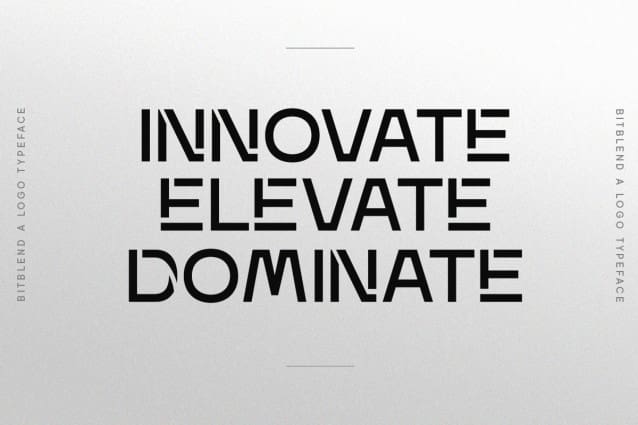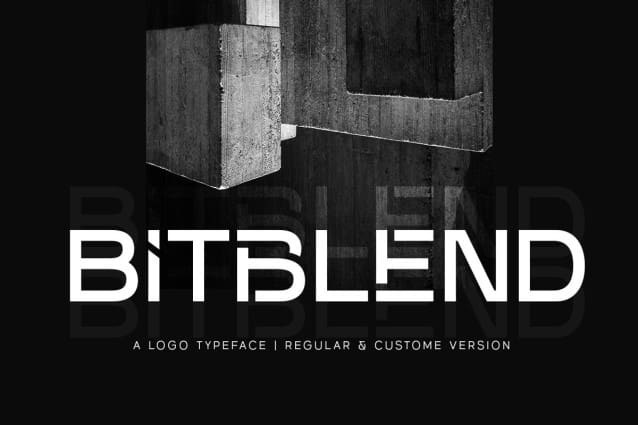
Bitblend Font
Bitblend Font is a logo typeface with custome version which is speciality made for a logotype. This type of font perfectly made to be applied especially in logo, headline, signage and the other various formal forms such as invitations, labels, logos, magazines, books, greeting / wedding cards, packaging, fashion, make up, stationery, novels, labels or any type of advertising purpose.